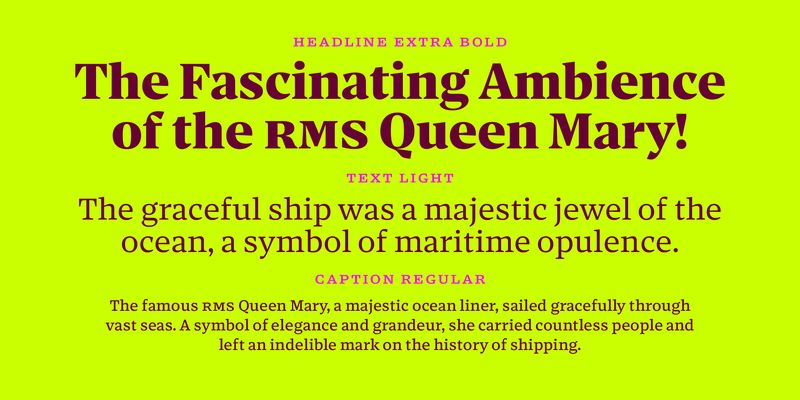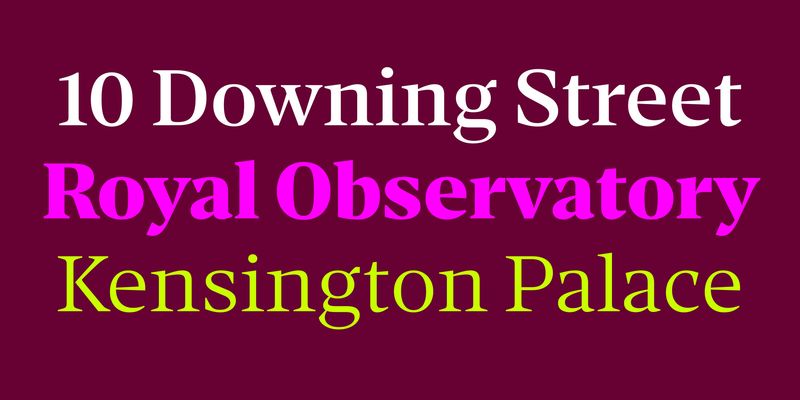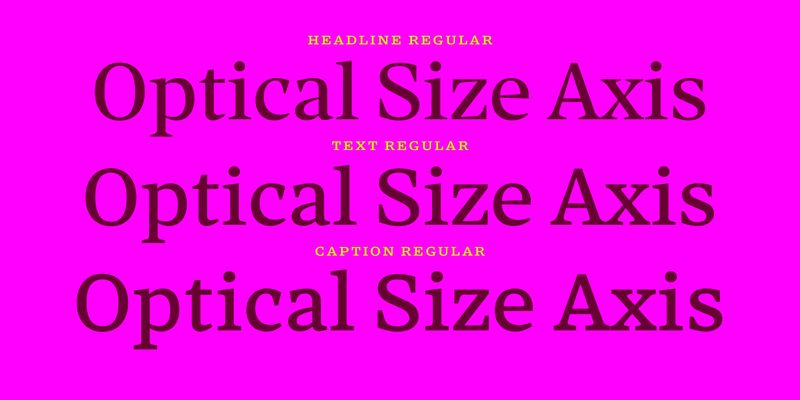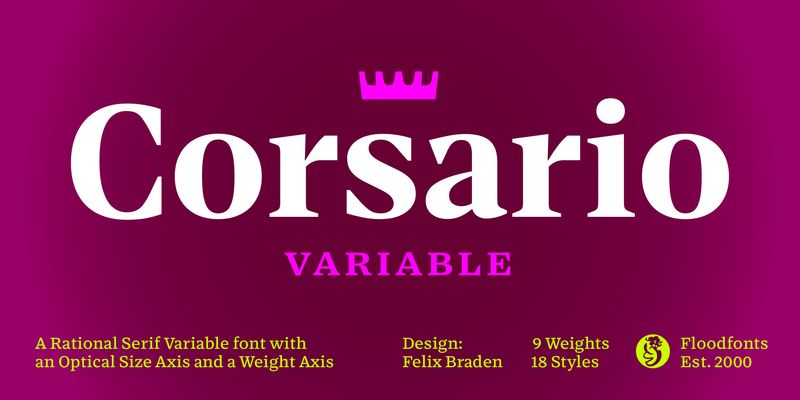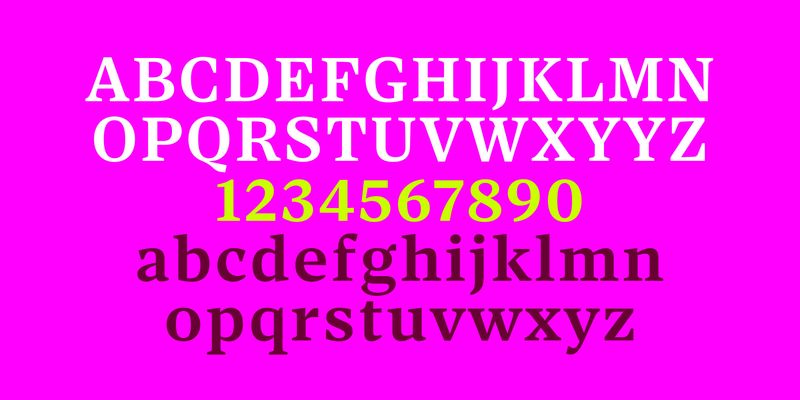
Corsario – A variable font family with an optical size axis and a weight axis, tailor-made for the demands of magazines and editorial design.
Corsario integrates an optical size axis and a weight axis, offering unparalleled flexibility in the choice of uses. Designed as a workhorse, Corsario excels in versatility, and strikes a harmonious balance between visual appeal and practicality. Whether you‘re setting striking headlines or immersing readers in extensive editorial content, Corsario guarantees an exceptional reading experience, making it the perfect choice for magazines and editorial design.
Inspired by the timeless allure of British transitional style, Corsario marries classical sophistication with a modern edge. The sharp, prominent serifs make a bold statement, ensuring your text commands attention while exuding an unmistakable elegance.